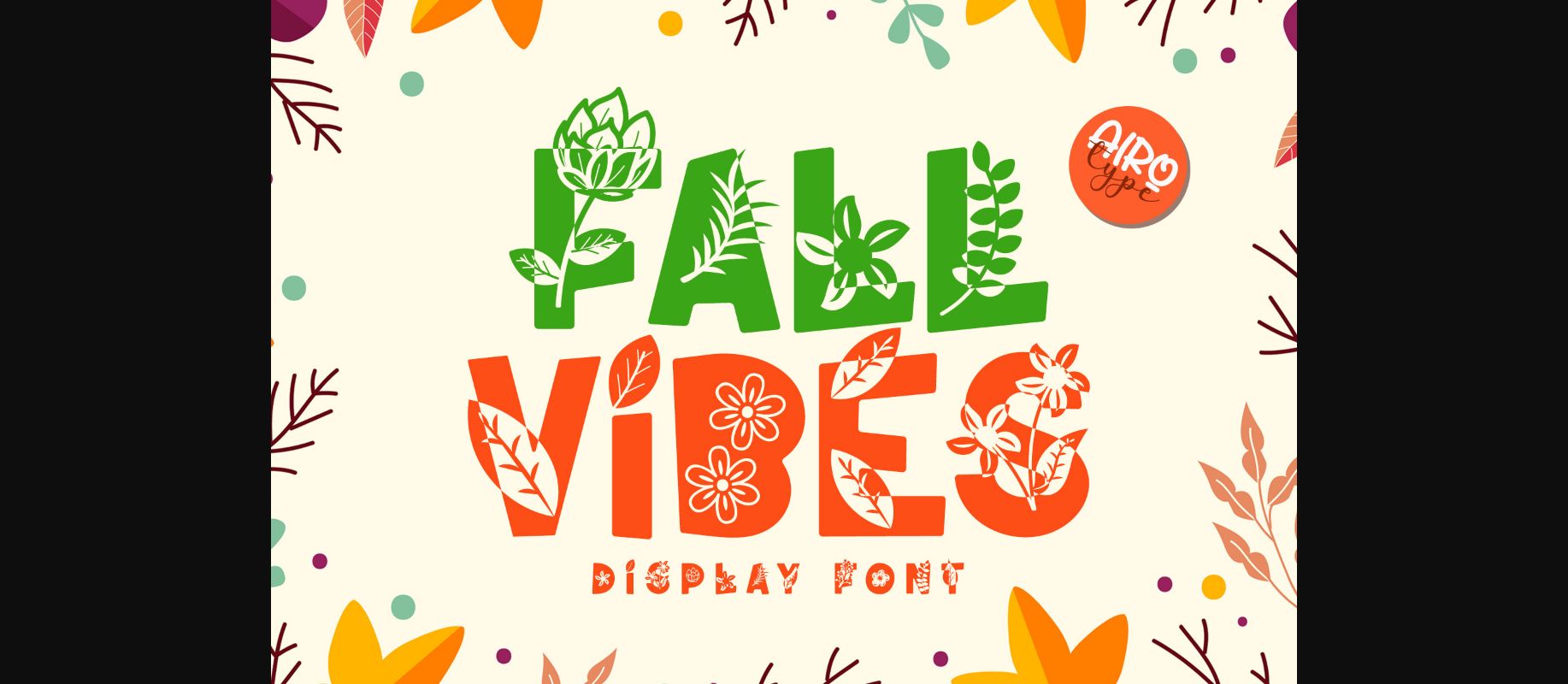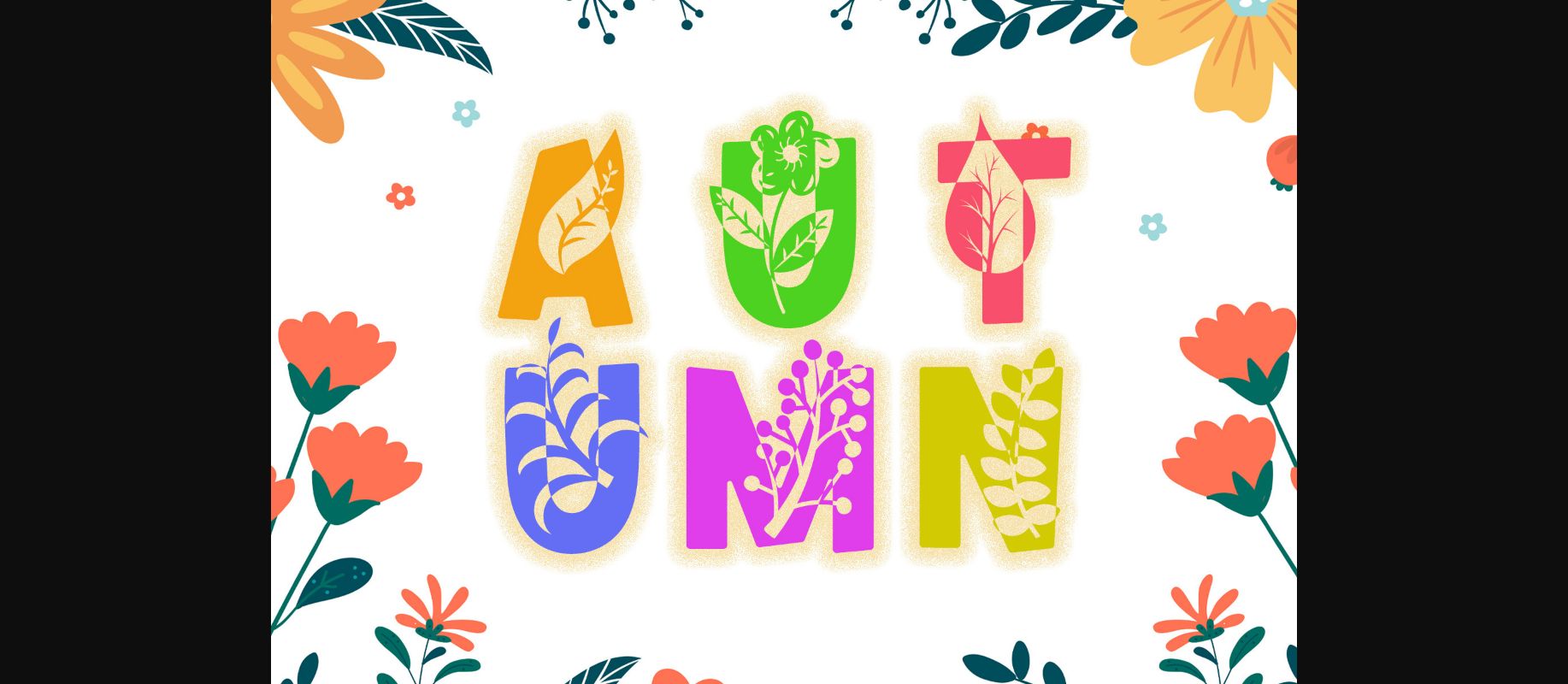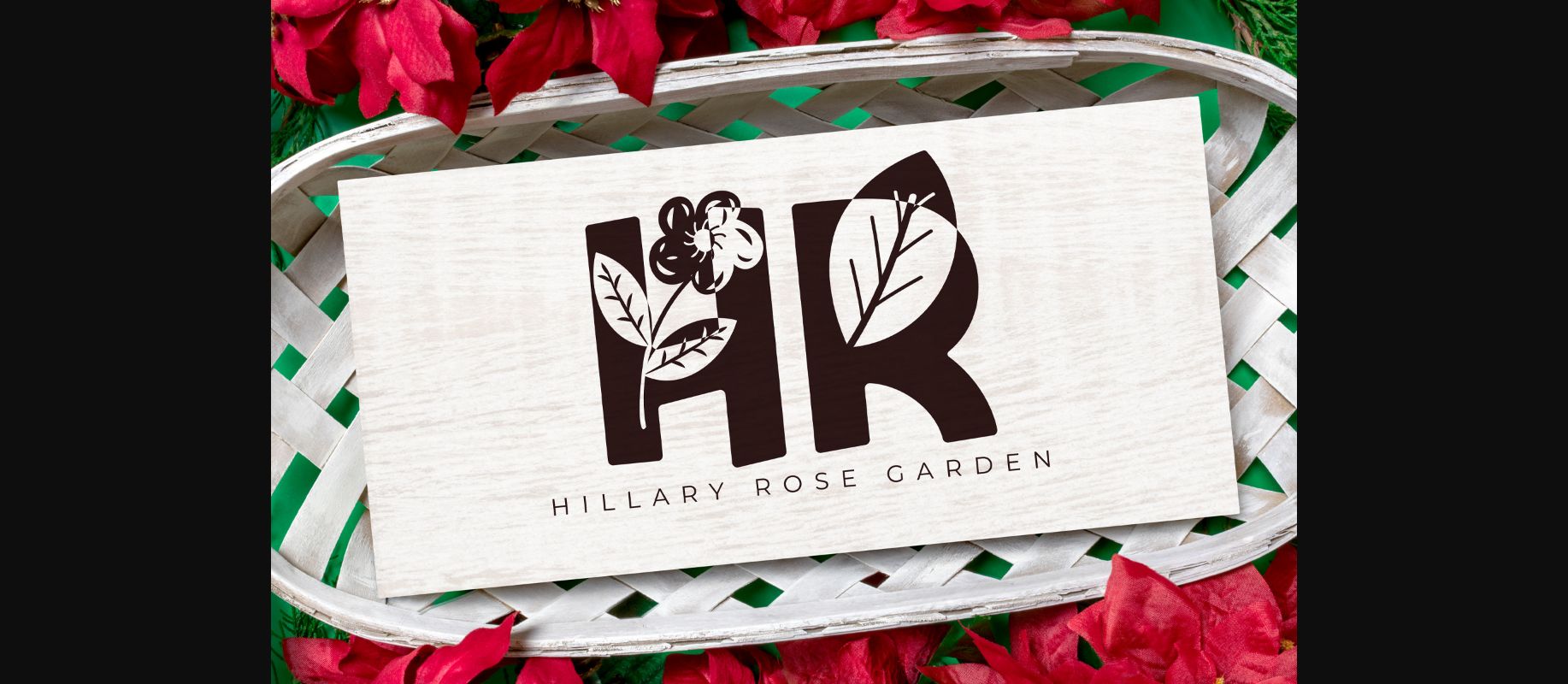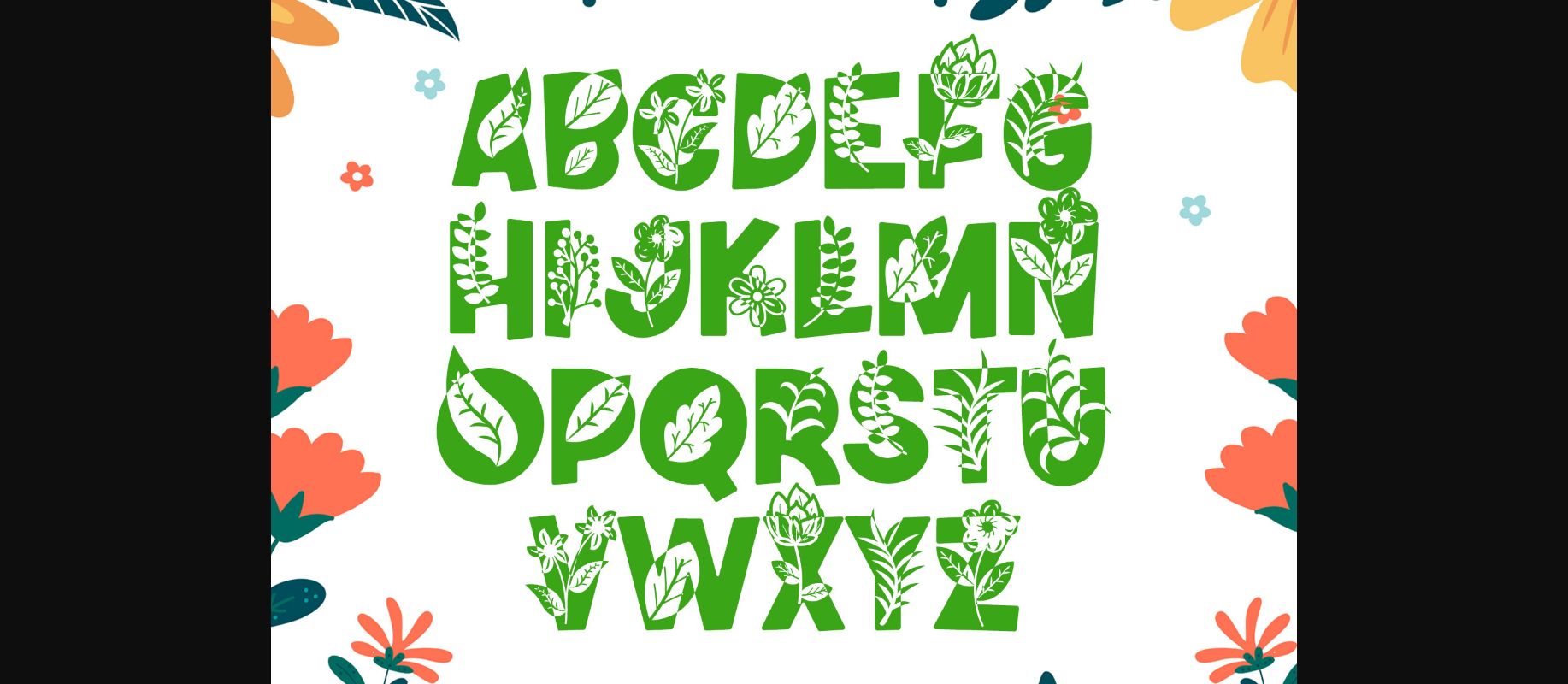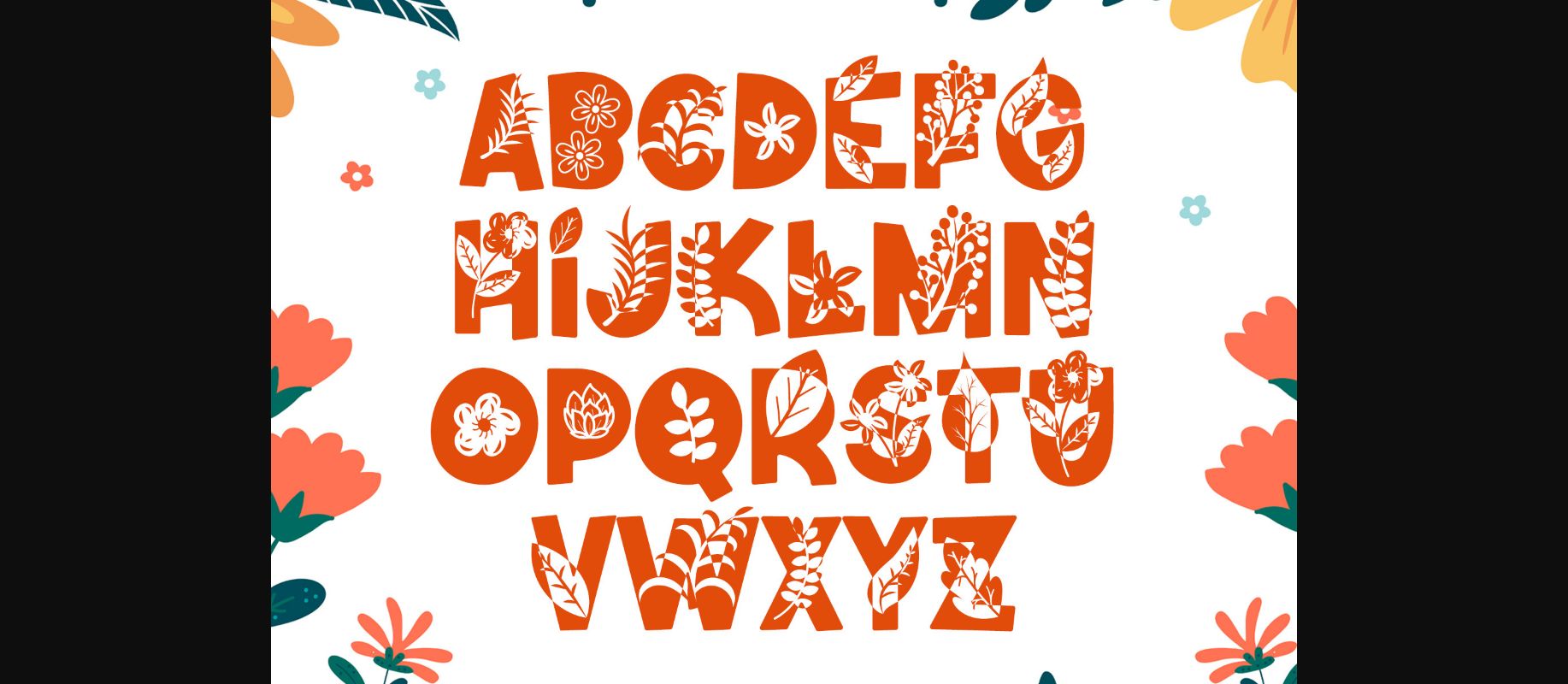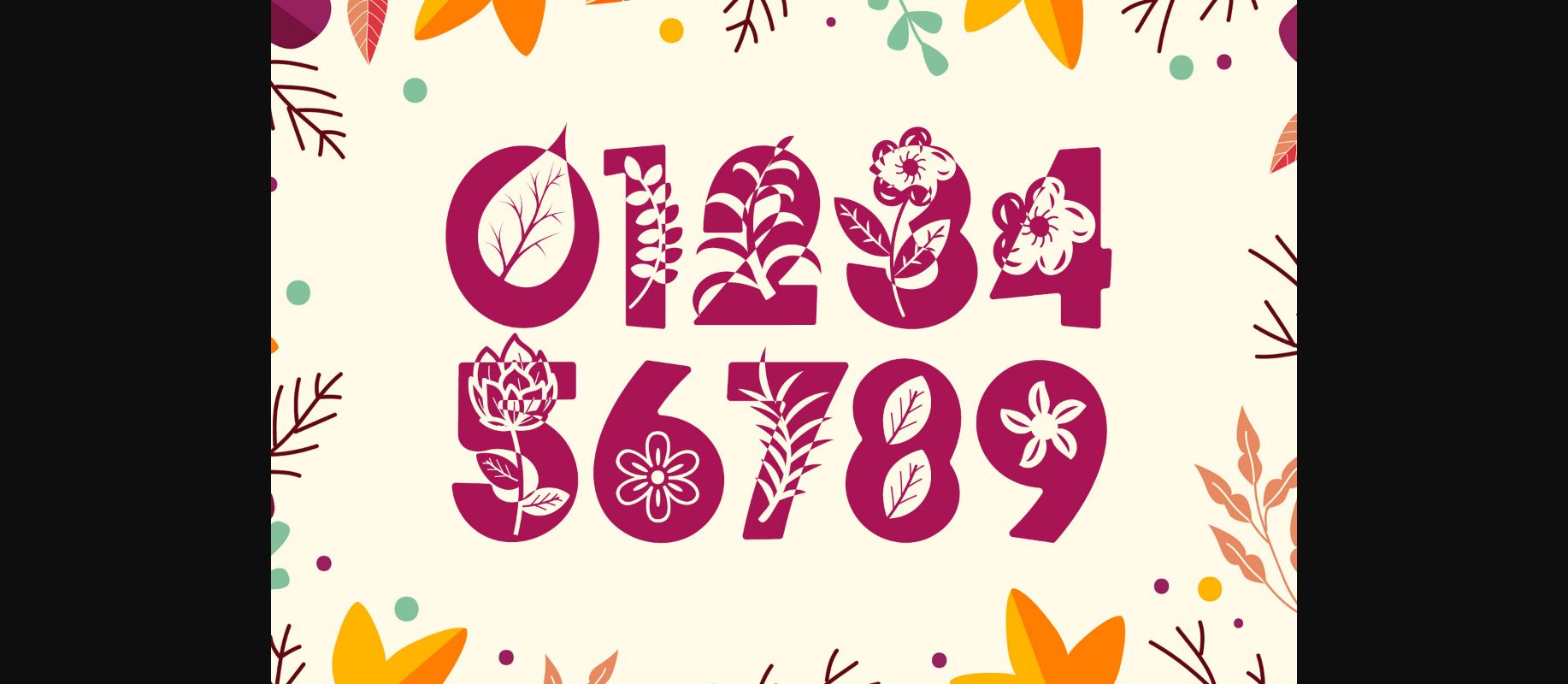
Fall Vibes Font
Fall Vibes is a cool and fun decorative font. It will elevate a wide range of crafting ideas, from cards, to branding, labels and much more.